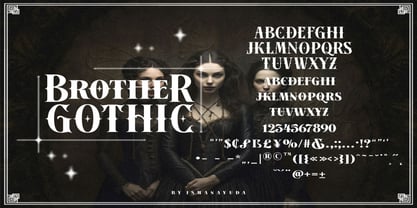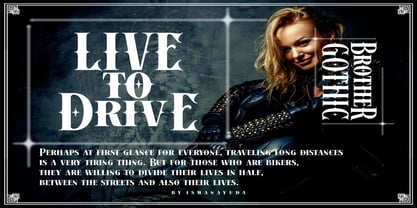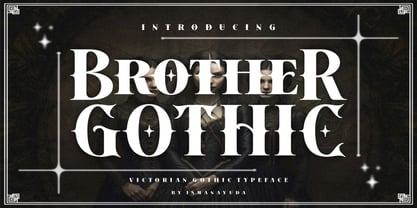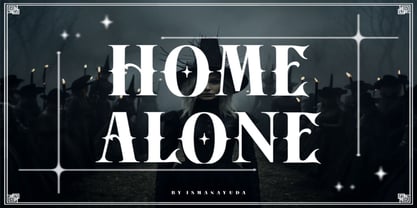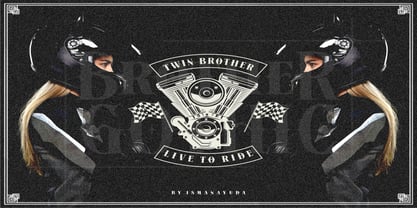
Brother Gothic
von Ismanayuda
Die Schriftfamilie Brother Gothic wurde von Ismana Yuda entworfen und von Ismanayuda veröffentlicht. Brother Gothic enthält 1 Stile. Mehr über diese Familie
"Brother Gothic." Designed by Ismanayuda, this Victorian Gothic font merges historical opulence with modern design sensibilities.
• The Typography: The centerpiece features the bold words "BROTHER GOTHIC" rendered in a stylized, high-contrast serif font. Sharp, thorn-like serifs, teardrop terminals, and diamond-shaped cutouts inside letters like 'O' and 'C' give it a mysterious, antique aesthetic.
• The Framing: The layout is structured within a clean, multi-layered rectangular white border. Intricate, geometric Victorian-style corners anchor each side of the frame.
• The Atmosphere: Set against a textured, grainy charcoal background, the image features soft-focus silhouettes of individuals in period clothing.
• The Accents: Four-pointed celestial stars and subtle lens flares shimmer in the corners, adding a touch of cinematic magic and vintage luxury to the composition.
Designer: Ismana Yuda
Foundry: Ismanayuda